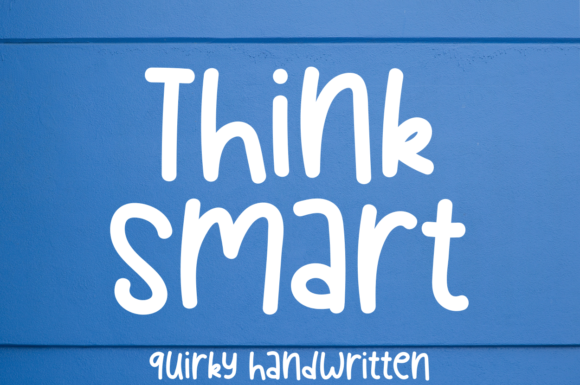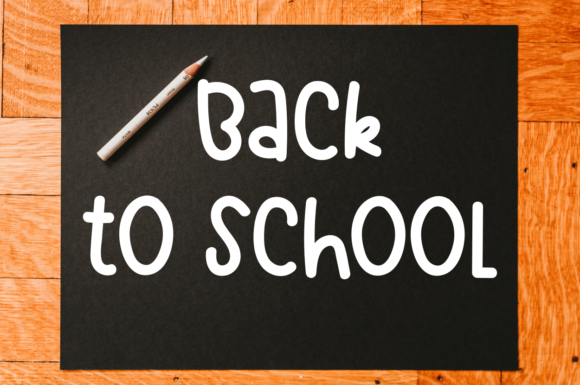
About Think Smart Font
Think Smart is a quirky and neat handwritten font. Readable, childish and friendly, this font will make each of your designs stand out.